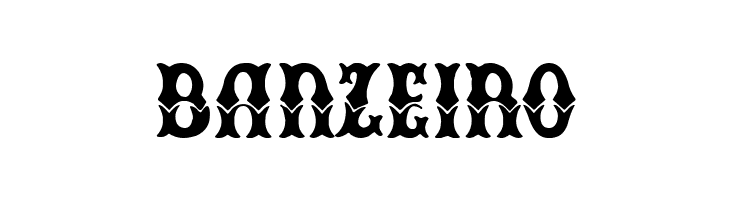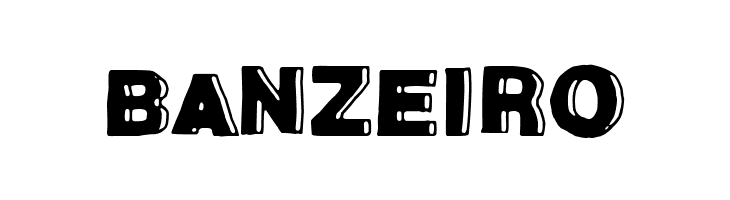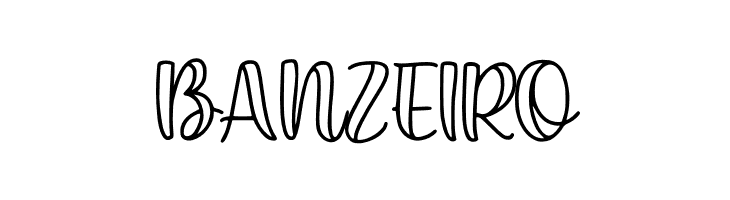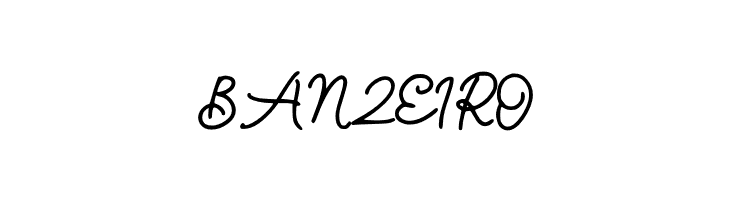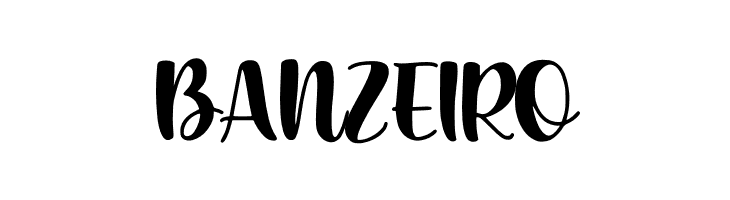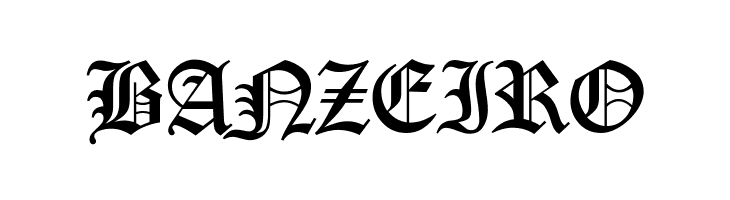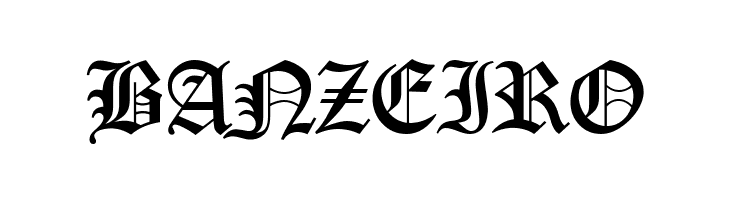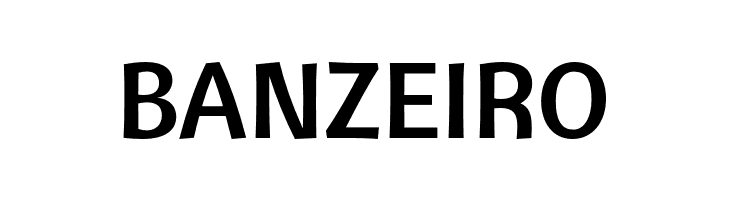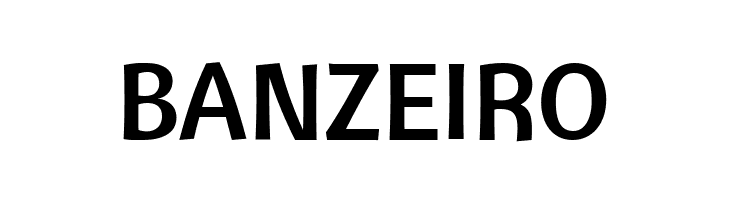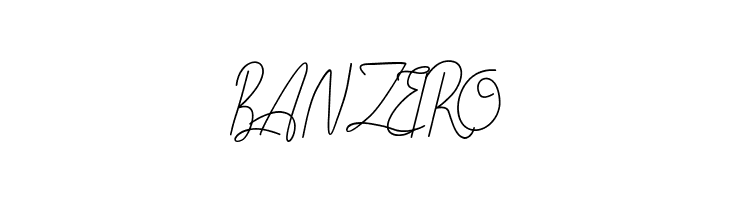
A tall, condensed font with a modern and sleek design.
A bold, 3D font with a modern and dynamic style.
A bold, shadowed font with a modern and dynamic appearance.
A bold, decorative font with diagonal stripes and medium contrast.
A bold, Gothic-style font with ornate serifs and medieval elegance.
A modern, light, and condensed sans-serif font with uniform stroke width.
A modern, outlined font with tall, narrow letters and a sleek design.
A bold, modern sans-serif font with clean lines and uniform strokes.
A casual and elegant handwritten font with fluid strokes.
A bold, modern sans-serif font with clean lines and a strong presence.
A flowing, handwritten script font with an elegant, signature-like style.
A fluid and elegant script font with smooth, flowing lines and graceful curves.
A bold, playful script font with flowing, dynamic letterforms.
A playful, handwritten font with a whimsical and charming style.
Expressive handwritten script with brush-like strokes.
An elegant and expressive script font with a handwritten appearance.
A dynamic, flowing script font with an elegant, handwritten style.
An elegant and flowing script font with ornate uppercase and smooth lowercase letters.
A graceful, flowing script font with an elegant handwritten style.
A bold, decorative font with intricate details and high contrast, perfect for dramatic visual impact.
A bold, decorative font with playful cut-out designs and high contrast.
A classic serif font with sharp, angular serifs and a modern touch.
An elegant, flowing script font with a handwritten style.
A monoline script font with a smooth, flowing style and consistent line thickness.
A bold, flowing script font with elegant, connected characters.
A bold, geometric font with a filled, three-dimensional style.
A bold, 3D geometric font with a gradient pattern and shadow effect.
A refined, slanted script font with elegant, flowing cursive strokes.
A sophisticated, slanted script font with high contrast and flowing, connected characters.
A graceful and sophisticated script font with flowing, interconnected letters.
A bold, modern font with a strong presence and classic elegance.
A modern, clean, and slightly condensed font with bold uppercase and friendly lowercase letters.